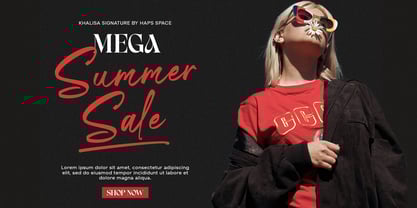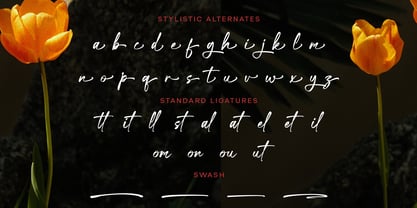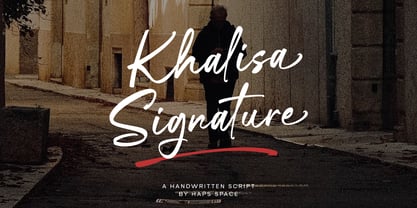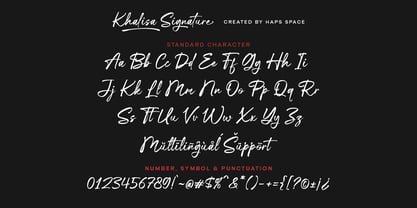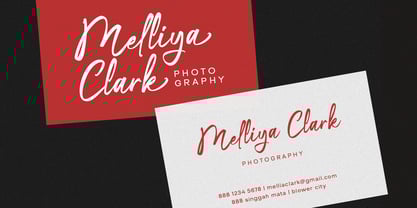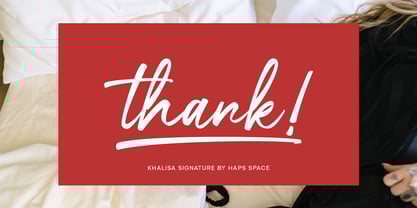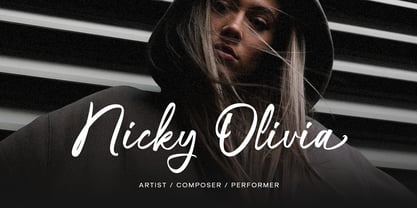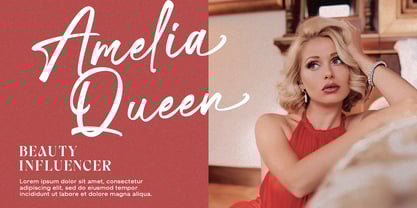
Khalisa Signature
by Haps Space
The Khalisa Signature Font Family was designed by Haris Purnama Putra, Egi Ahmad Mufid and published by Haps Space. Khalisa Signature contains 1 styles.
Khalisa Signature is an elegant, handwritten script font that exudes sophistication and personal style. Crafted with attention to detail, this font features smooth, flowing letterforms that mimic a natural handwriting style, making it ideal for branding, invitations, quotes, and more. The font’s dynamic curves and graceful strokes give it a unique and authentic feel, ensuring your designs stand out with a touch of personal flair.
Designers: Haris Purnama Putra, Egi Ahmad Mufid
Publisher: Haps Space
Foundry: Haps Space
Design Owner: Haps Space